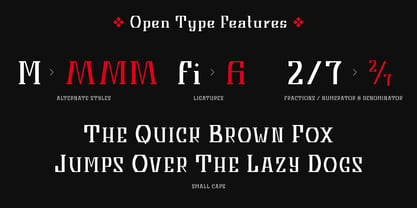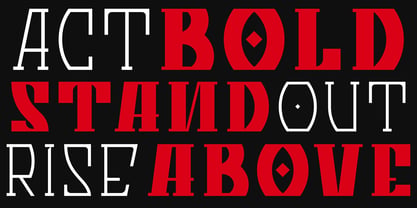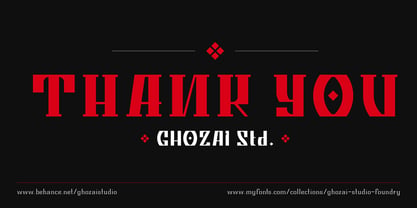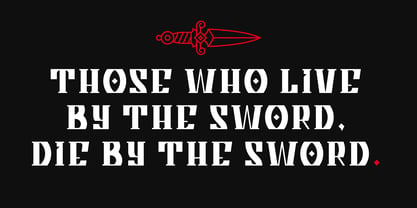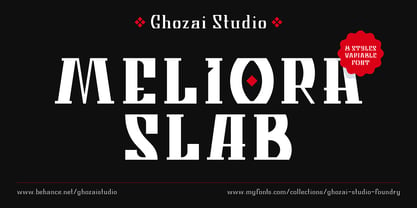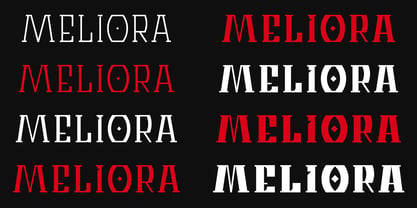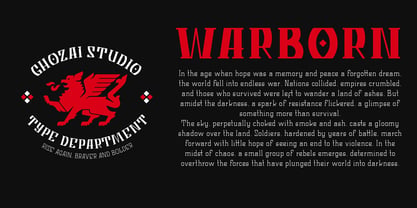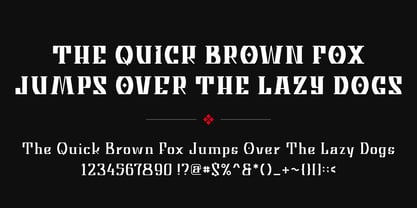
Meliora Slab
por Ghozai Studio
La familia tipográfica Meliora Slab fue diseñada por Manzur Ghozaali y publicada por Ghozai Studio. Meliora Slab contiene 8 estilos y opciones de paquete familiar.
Meliora Slab is the serif/slab version of the Meliora font, which gives more design options. Meliora Slab is a font inspired by letters that appear to be cut at both the top and bottom, creating a unique visual aesthetic. Its design features a blend of bold, thick, and thin lines, resulting in dynamic typography that captures attention. With a wide range of variations, from thin to extra bold, Meliora Slab offers limitless versatility, making it an excellent choice for various design applications, including posters, headlines, logos, and branding materials.
Diseñadores: Manzur Ghozaali
Editorial: Ghozai Studio
Fundición: Ghozai Studio